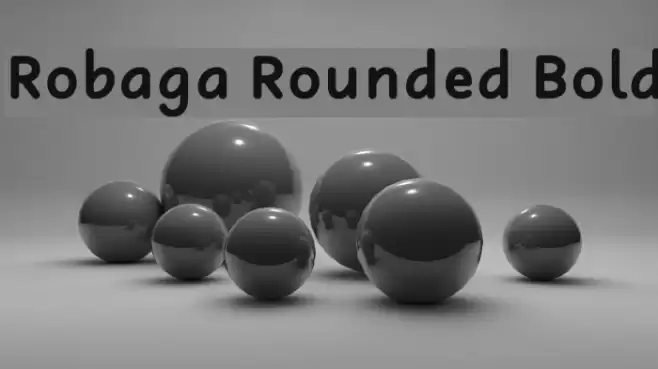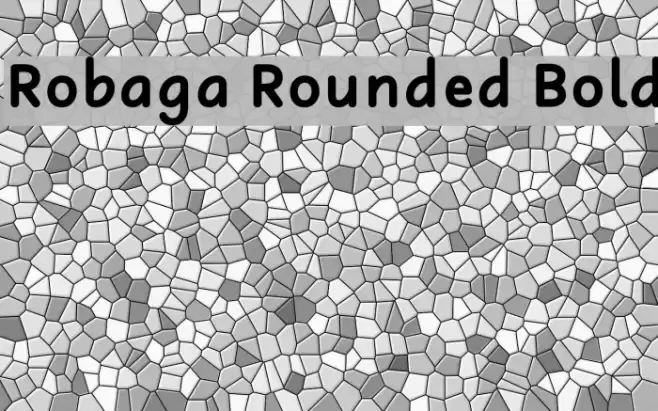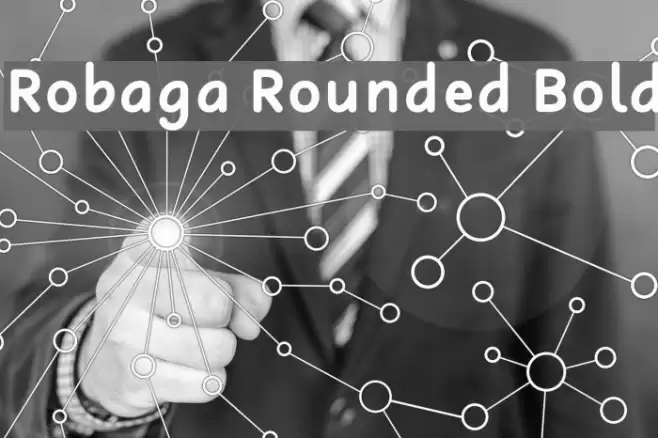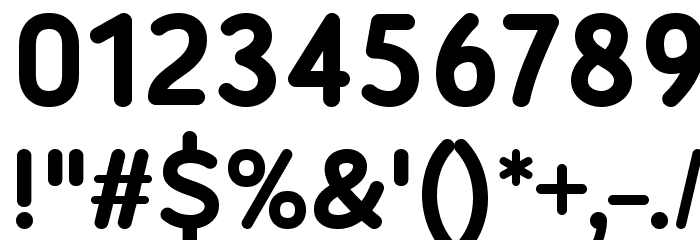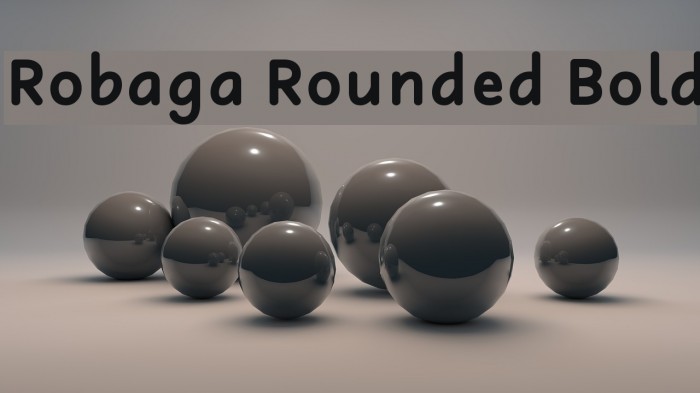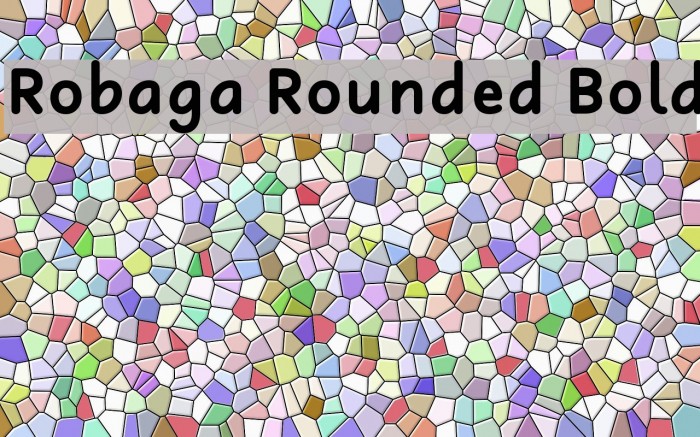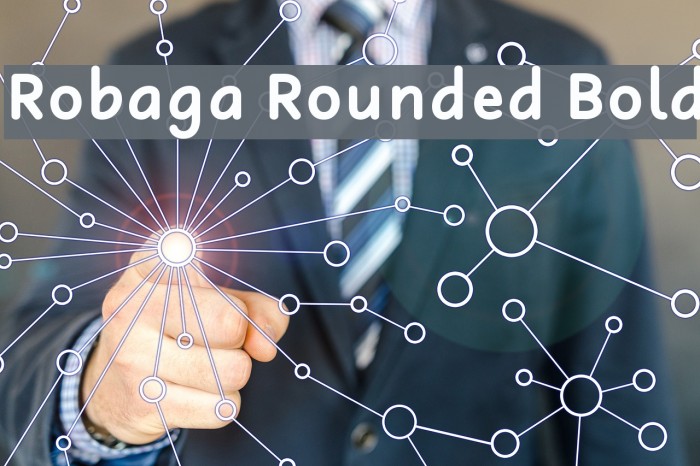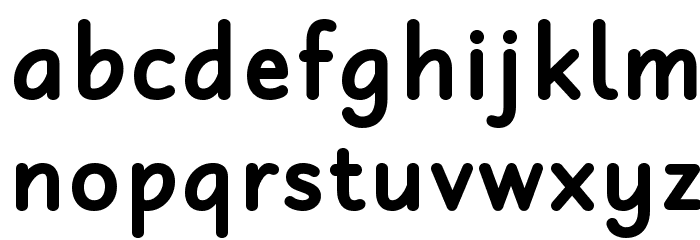
Robaga Rounded Bold Font
Robaga Rounded Bold Description
This font features a bold and rounded style, offering a friendly and approachable appearance. The characters are well-balanced with smooth curves and consistent stroke thickness, making it highly legible. The rounded edges give it a soft and inviting look, suitable for a variety of design contexts. Its bold weight ensures that it stands out, while the rounded forms add a playful touch. The font maintains a uniform width across all characters, contributing to its clean and modern aesthetic.
A bold, rounded font with smooth curves and a friendly appearance from Uncategorized fonts.
- Proposed Projects: Ideal for branding, headlines, posters, and children's books due to its playful and approachable style.